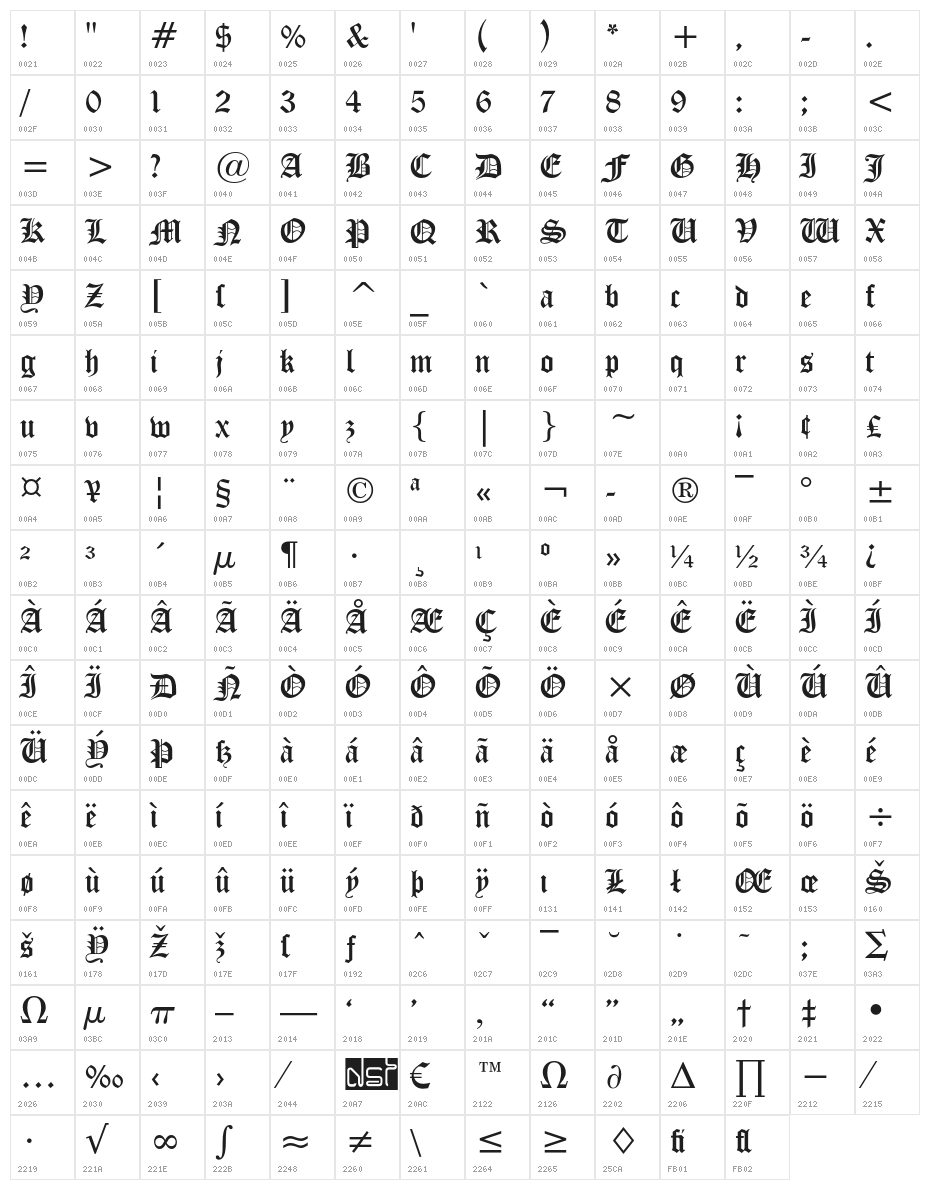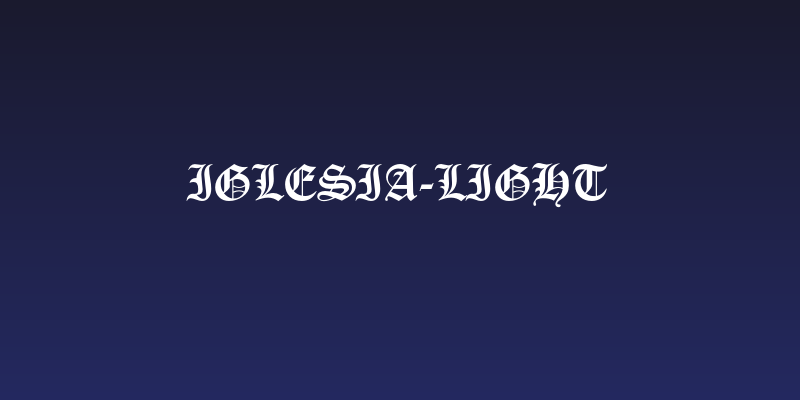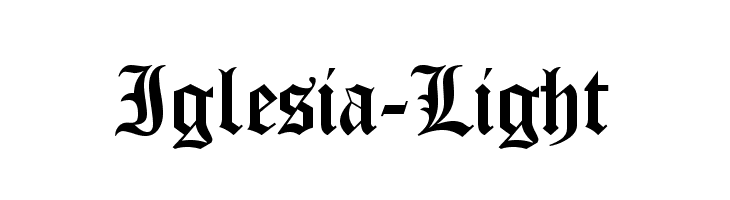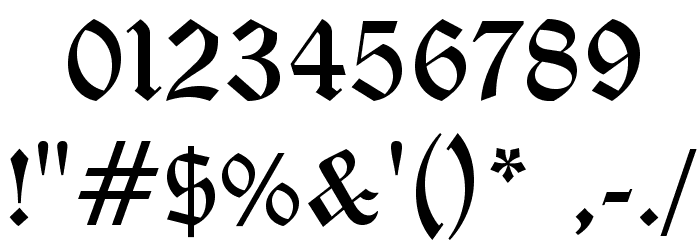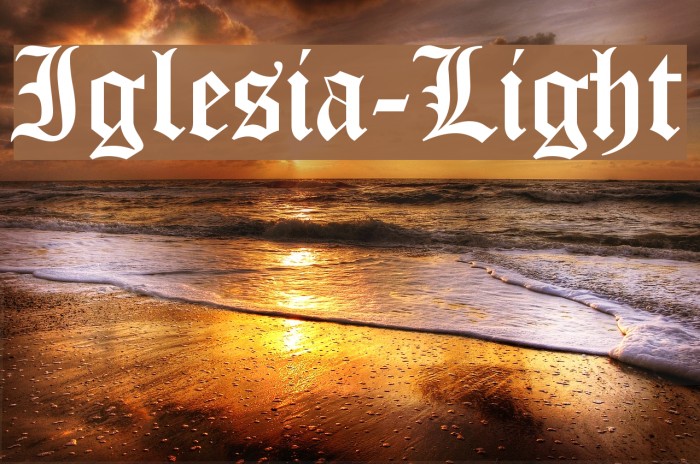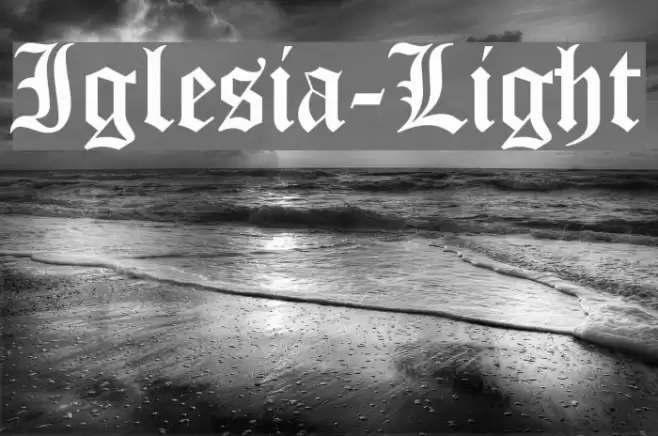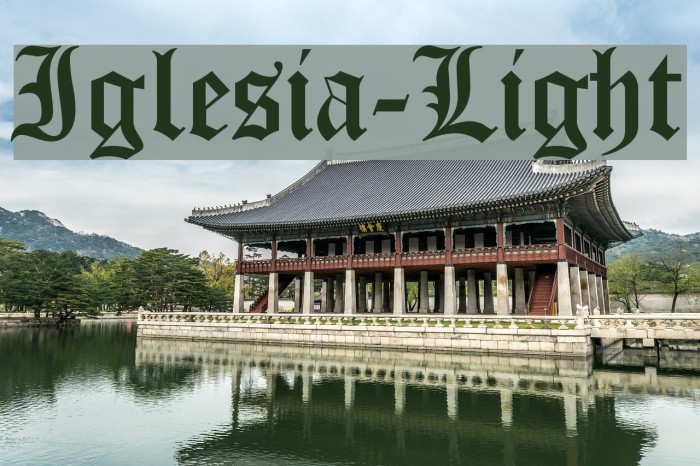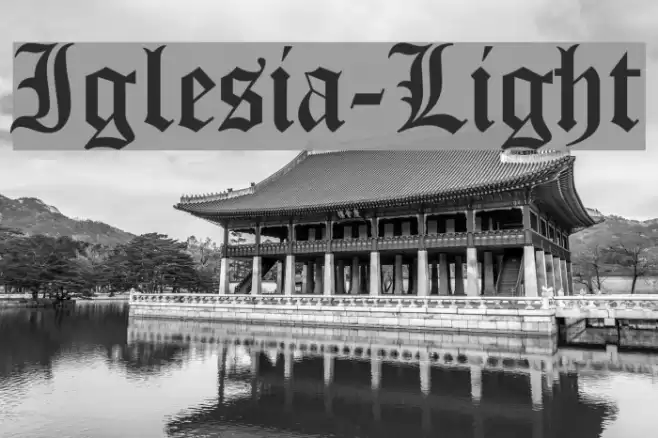
Iglesia-Light Font
Iglesia-Light Description
This font features a classic blackletter style, characterized by its intricate and ornate letterforms. The uppercase letters exhibit sharp, angular lines with elaborate serifs and decorative elements, while the lowercase letters maintain a consistent style with a slightly more condensed form. The numerals are bold and match the overall aesthetic, providing a cohesive look. Special characters are designed with the same attention to detail, making them suitable for a variety of decorative purposes. The font's historical and traditional appearance makes it ideal for projects that require a touch of elegance and sophistication.
| Overall Style | Classic |
| Use Case | Logos, Headlines, Decorative text |
| Proposed Projects | Ideal for wedding invitations, certificates, historical documents, and branding that requires a traditional or elegant touch. |